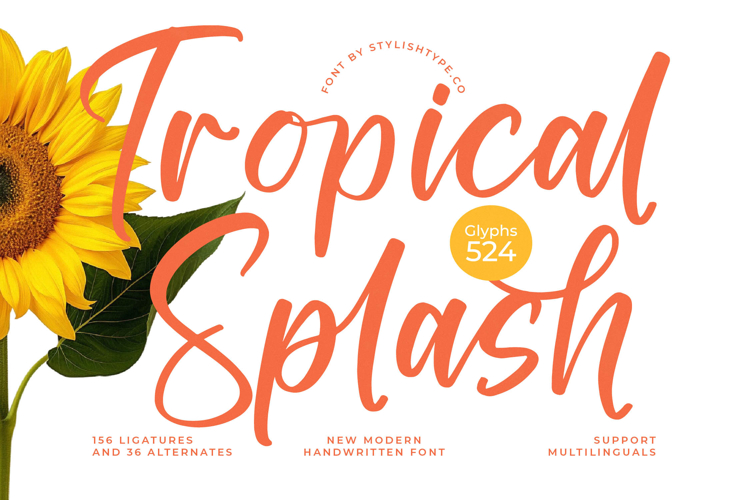
Tropical Splash - Modern Handwritten Font
Unlock unparalleled creative flexibility through its robust OpenType features. With over 156 expertly crafted ligatures and 36 alternates, Tropical Splash - Modern Handwritten Font ensures that your text never looks repetitive or machine-generated. This powerful set of glyphs allows designers to achieve truly customized typography, resulting in visually stunning and natural connections that capture the essence of genuine handwriting.